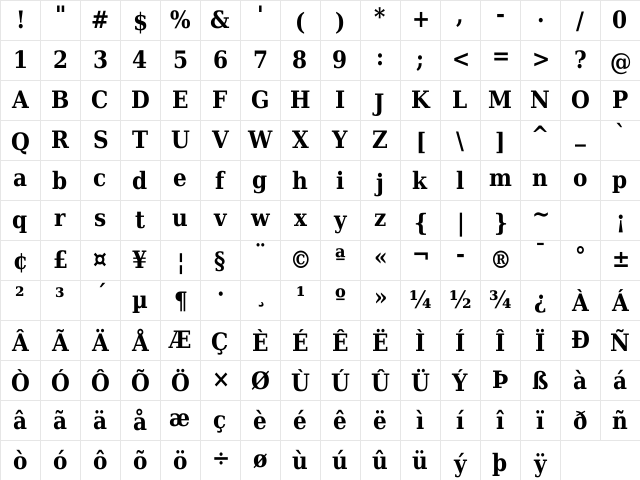
Complete DejaVu LGC Serif Condensed Bold glyph index. Displaying only characters natively supported by DejaVu LGC Serif Condensed Bold font.
DejaVu LGC Serif Condensed carries the refined structure of traditional serif typography, with bracketed terminals and considered proportions that communicate credibility and craft. Its bold stroke weight gives it real presence on the page. Its narrow stance lets it pack a punch even in space-constrained designs.
Pro Tip: Use DejaVu LGC Serif Condensed for editorial body copy and considered headline work. Pair with a neutral sans for UI elements or captions to create a classic hierarchy.
Who designed the DejaVu LGC Serif Condensed Bold font?